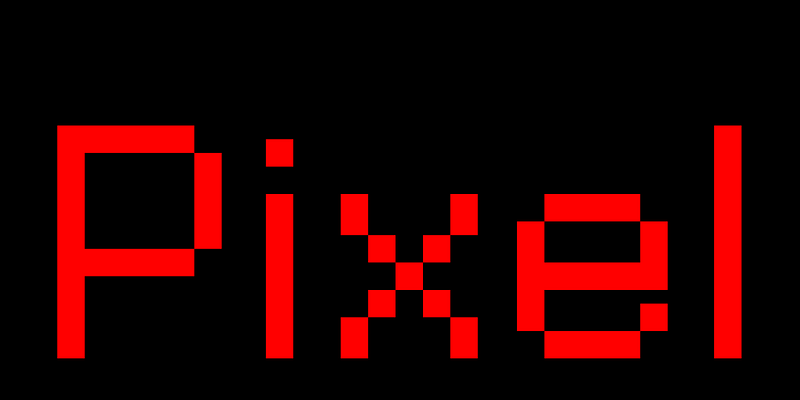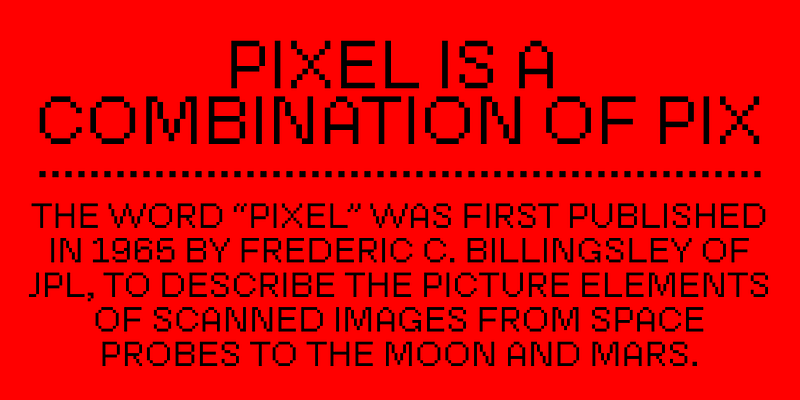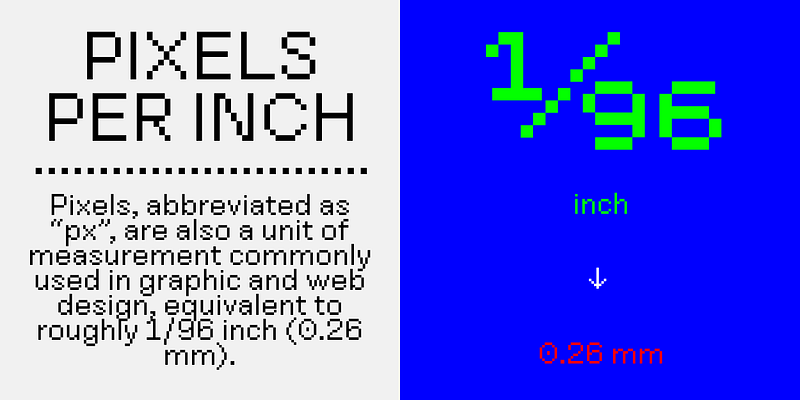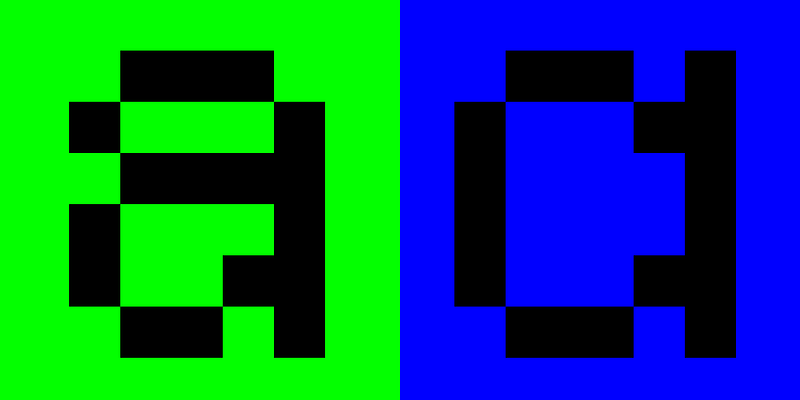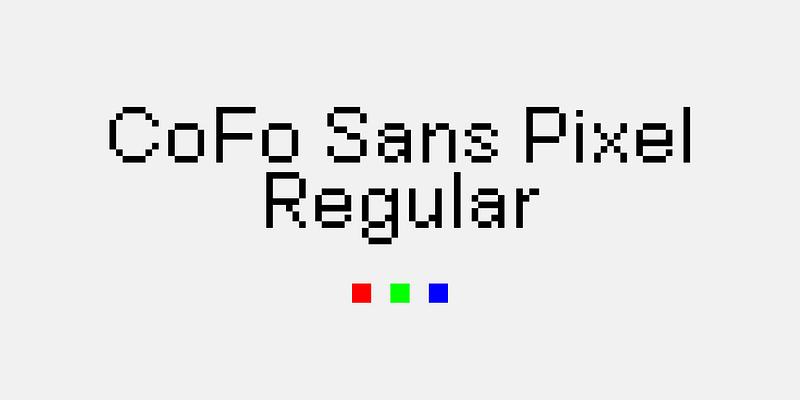
CoFo Pixel is… you guessed it, a pixel font. Every letterform is built from small squares placed on a grid. There are no curves, no optical adjustments, no small details. You might say that it makes the work easier. However, simple solutions are not necessarily easy solutions. After some thorough testing of pixel shapes and grid sizes, we chose to work with a simple square building block and a grid that is neither too large, nor too small. We wanted the forms to be as simple and clean as possible, but also recognisable and usable in a range of sizes.
Based on the Regular style of CoFo Sans, CoFo Pixel shares many of its characteristics—thickness of the stems, vertical proportions, and overall width of all the characters. The strong foundation of CoFo Sans allowed us to keep Cyrillic alphabet in mind right from the very start and to create an extensive typographic system.
The resulting CoFo Pixel is CoFo Sans’s pixel sibling. Its possible applications include large display forms, logos, illustrations. It includes Latin and Cyrillic, localised forms, punctuation marks, math and currency symbols—matching the character set of CoFo Sans, which makes them a great pair and a beautiful addition to your font collection!